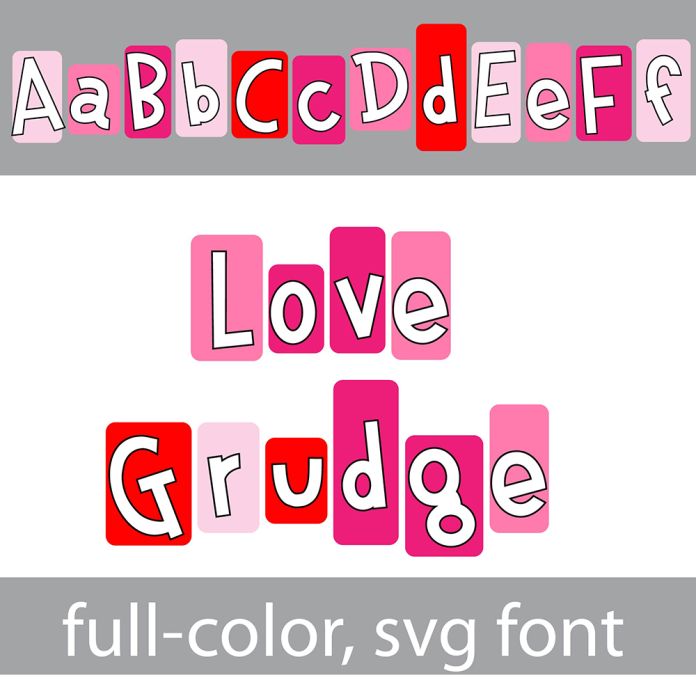
This full-color font features a whimsical print in boxy Valentine colored boxes. There is an alt case with an additional color of each letter. This font works best for titles, displays, posters and more. Please note color fonts will show as black in non compatible programs. This font type is compatible with Silhouette Studio.